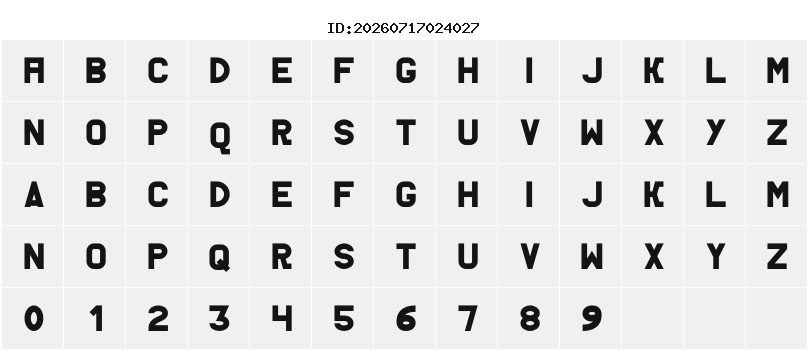
AC Thermes Solid Preview
• Font Name: AC Thermes Solid
• Full Font Name: AC Thermes Solid
• Designer: Adrian Candela
• Manufacturer: Adrian Candela
• Description: AC Thermes is a font by Adrian Candela, designed by Adrian Candela in 2013.
About AC Thermes Solid.otf
AC Thermes Solid.otf is a modern, elegant sans-serif font designed for ultimate readability and visual harmony. Perfect for branding, headlines, web design, and print materials.